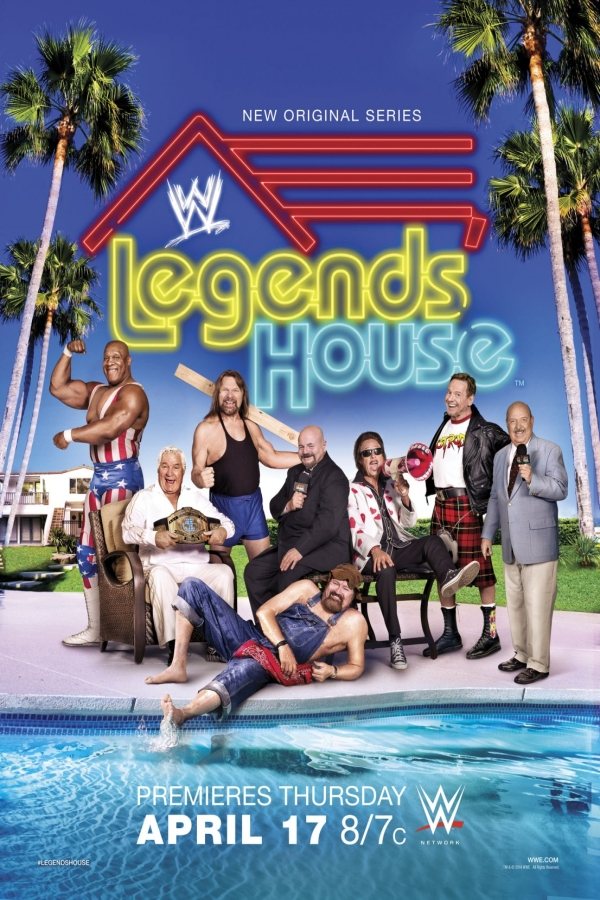
WWE Legends' House Font
Fonts in UseWWE Legends’ House was a reality show that aired on the WWE Network in 2014. It featured eight WWE legends living together in a house and participating in various challenges and activities.
ITC Bauhaus Bold font, a rounded sans serif, was possibly used for the TV show logo. Designed by Ed Benguiat and Vic Caruso in 1975, it draws inspiration from Herbert Bayer's Universal typeface of the Bauhaus School. More details are available here.